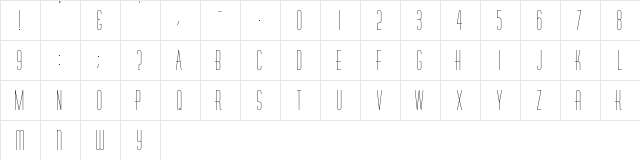
RhyoliteVertica Regular
Design Context for RhyoliteVertica Typeface
RhyoliteVertica offers clean, dependable letterforms without strong stylistic allegiance, making it a practical choice for designers who need flexibility.
Pro Tip: Use RhyoliteVertica in both headline and body roles to test its range before committing to a single application.